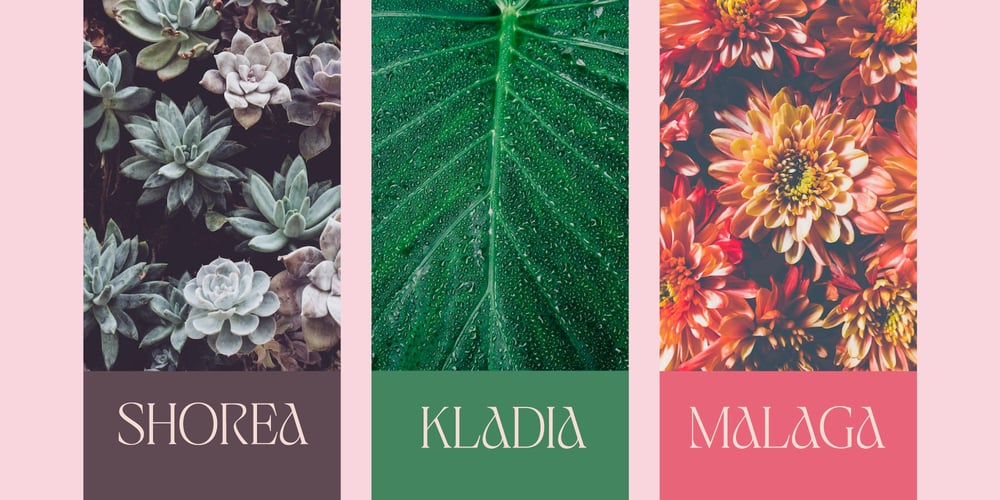
Jaella Font Family was designed by Kadek Mahardika and published by Creativemedialab. Jaella contains 8 styles and family package options. Jaella is a modern retro serif family. It has unique characters, such as capital A, R and B, making your design unique and stand out. Designed for editorial use, display or fashion-related branding concepts, She can be elegant or play with alternatives for a cheerful retro look. This versatile family has seven weights, from thin to black, and a variable format that can generate more weights.